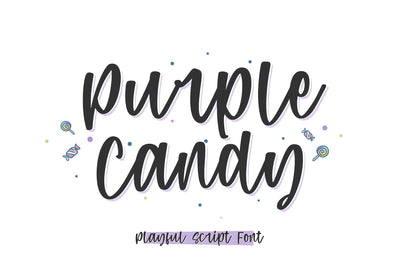
Purple Candy - Playful Script Font
Purple candy is an elegant and playful handwritten script font font. it's perfect for branding, wedding invitation or card, apparel and many others. This font is PUA encoded which means you can access all of the glyphs with ease! Add it to your most creative ideas and notice how it makes them come alive!